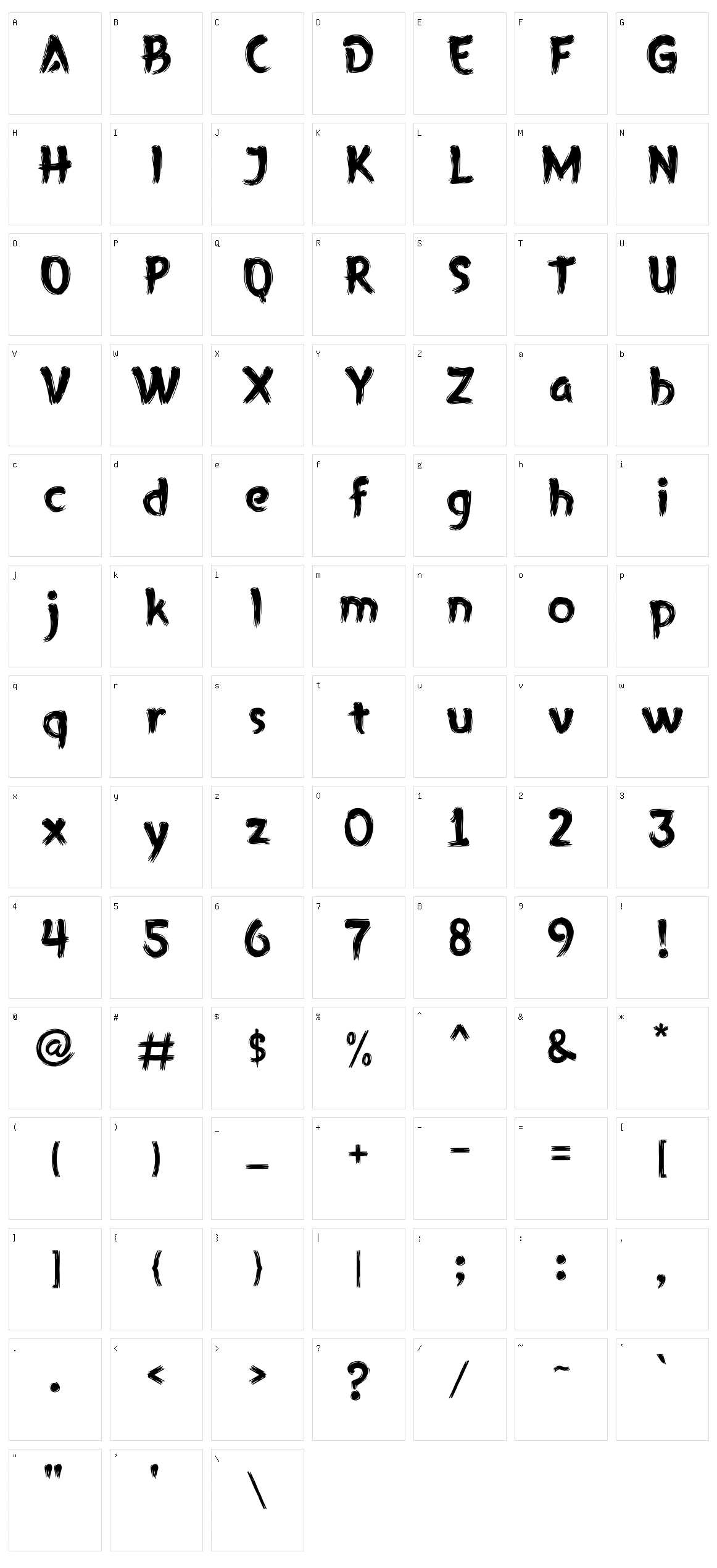
The free font Grimroar is carefully designed by Typeline Studio, showcasing a thoughtful balance of creativity and usability and falls under the Horror font style. When you download the ZIP file, it contains only 289.09 KB of font files, making it lightweight and quick to download. Please review the license details below to understand permitted usage and distribution rights. If license information is not available, we recommend using this font for personal projects only or contacting the author directly for commercial usage permissions.